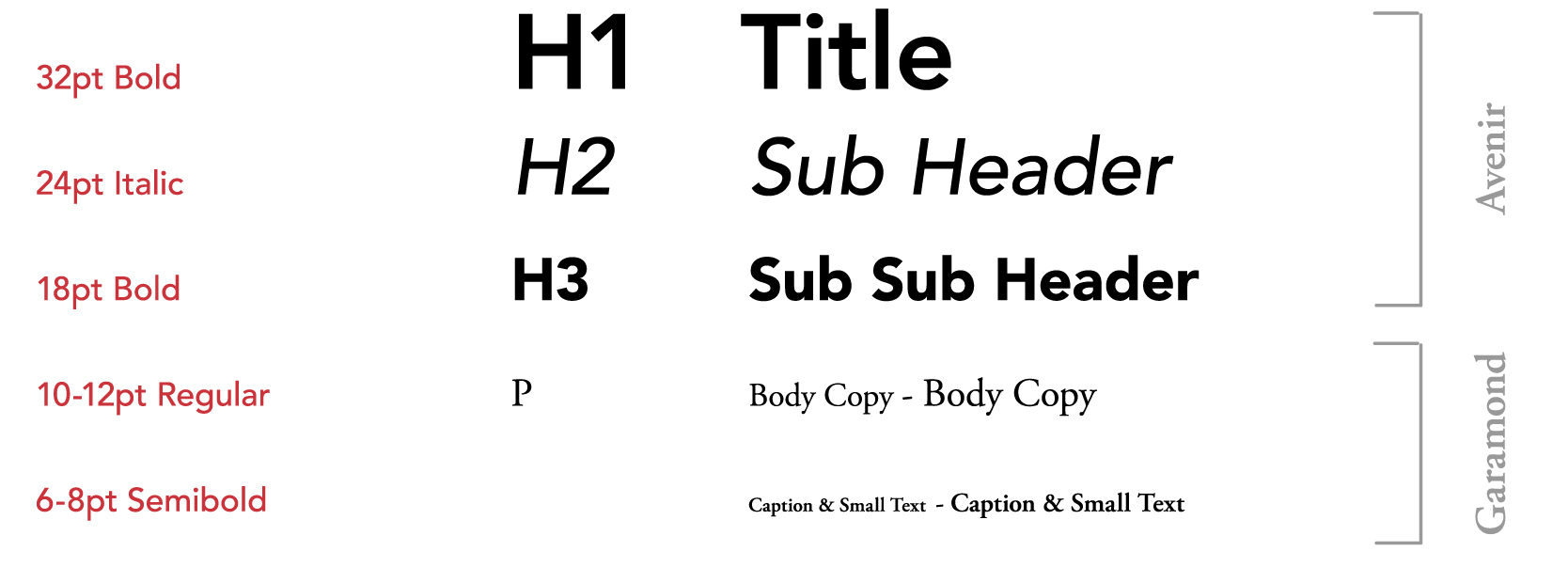
Standard Font Size For Newspaper . Standard page dimensions are typically 12 x 22 inches (304 x 559 mm), but. The specific font size may vary depending on the. These fonts have clean lines and are easy to. Newspapers typically come in a few standard sizes, which vary depending on the publication’s preference and its target audience. Page size varies within a newspaper. We’ve broken down 10 popular newspaper fonts and analyzed what they can offer as a potential headline or newspaper headline font. Most are in the 9 pt range, as someone already. Most newspapers use 8 or 9 point text for body copy. What is the standard font size for newspapers? 22.75” x 17” with a live/printable design area of 21” x 16” size in pixels (at 300ppi): Here are the most common newspaper sizes. The most common newspaper fonts are serif, such as times new roman and georgia.
What is the standard font size for newspapers? Here are the most common newspaper sizes. Most newspapers use 8 or 9 point text for body copy. Newspapers typically come in a few standard sizes, which vary depending on the publication’s preference and its target audience. Standard page dimensions are typically 12 x 22 inches (304 x 559 mm), but. Most are in the 9 pt range, as someone already. Page size varies within a newspaper. 22.75” x 17” with a live/printable design area of 21” x 16” size in pixels (at 300ppi): We’ve broken down 10 popular newspaper fonts and analyzed what they can offer as a potential headline or newspaper headline font. The specific font size may vary depending on the.
Newspaper Font Sizes Exploring The Evolution Of Font Sizes
Standard Font Size For Newspaper Here are the most common newspaper sizes. Most newspapers use 8 or 9 point text for body copy. 22.75” x 17” with a live/printable design area of 21” x 16” size in pixels (at 300ppi): Standard page dimensions are typically 12 x 22 inches (304 x 559 mm), but. These fonts have clean lines and are easy to. The most common newspaper fonts are serif, such as times new roman and georgia. We’ve broken down 10 popular newspaper fonts and analyzed what they can offer as a potential headline or newspaper headline font. What is the standard font size for newspapers? Most are in the 9 pt range, as someone already. Page size varies within a newspaper. The specific font size may vary depending on the. Newspapers typically come in a few standard sizes, which vary depending on the publication’s preference and its target audience. Here are the most common newspaper sizes.
Standard Fonts & Font Sizes Standard Font Size For Newspaper 22.75” x 17” with a live/printable design area of 21” x 16” size in pixels (at 300ppi): Most are in the 9 pt range, as someone already. Standard page dimensions are typically 12 x 22 inches (304 x 559 mm), but. We’ve broken down 10 popular newspaper fonts and analyzed what they can offer as a potential headline or newspaper. Standard Font Size For Newspaper.
Printable Font Size Chart Standard Font Size For Newspapers typically come in a few standard sizes, which vary depending on the publication’s preference and its target audience. Most are in the 9 pt range, as someone already. Most newspapers use 8 or 9 point text for body copy. We’ve broken down 10 popular newspaper fonts and analyzed what they can offer as a potential headline or newspaper headline. Standard Font Size For Newspaper.
Newspaper Size Dimension, Inches, mm, cms, Pixel Standard Font Size For Newspapers typically come in a few standard sizes, which vary depending on the publication’s preference and its target audience. 22.75” x 17” with a live/printable design area of 21” x 16” size in pixels (at 300ppi): Standard page dimensions are typically 12 x 22 inches (304 x 559 mm), but. These fonts have clean lines and are easy to. Most. Standard Font Size For Newspaper.
Most Popular Newspaper Fonts Standard Font Size For Newspaper These fonts have clean lines and are easy to. Most newspapers use 8 or 9 point text for body copy. The specific font size may vary depending on the. What is the standard font size for newspapers? Here are the most common newspaper sizes. 22.75” x 17” with a live/printable design area of 21” x 16” size in pixels (at. Standard Font Size For Newspaper.
Newspaper Size Dimension, Inches, mm, cms, Pixel Standard Font Size For Newspaper Standard page dimensions are typically 12 x 22 inches (304 x 559 mm), but. 22.75” x 17” with a live/printable design area of 21” x 16” size in pixels (at 300ppi): The specific font size may vary depending on the. The most common newspaper fonts are serif, such as times new roman and georgia. Here are the most common newspaper. Standard Font Size For Newspaper.
Newspaper Letters Font Generator Amazing Font Standard Font Size For Newspaper The most common newspaper fonts are serif, such as times new roman and georgia. Most newspapers use 8 or 9 point text for body copy. Here are the most common newspaper sizes. What is the standard font size for newspapers? Newspapers typically come in a few standard sizes, which vary depending on the publication’s preference and its target audience. The. Standard Font Size For Newspaper.
Newspaper Fonts on Google Docs Standard Font Size For Newspaper Page size varies within a newspaper. The most common newspaper fonts are serif, such as times new roman and georgia. 22.75” x 17” with a live/printable design area of 21” x 16” size in pixels (at 300ppi): Newspapers typically come in a few standard sizes, which vary depending on the publication’s preference and its target audience. The specific font size. Standard Font Size For Newspaper.
20+ Best Newspaper Fonts for Capturing Attention Standard Font Size For Newspaper 22.75” x 17” with a live/printable design area of 21” x 16” size in pixels (at 300ppi): What is the standard font size for newspapers? Here are the most common newspaper sizes. We’ve broken down 10 popular newspaper fonts and analyzed what they can offer as a potential headline or newspaper headline font. Most are in the 9 pt range,. Standard Font Size For Newspaper.
Newspaper Size Dimension, Inches, mm, cms, Pixel Standard Font Size For Newspaper The specific font size may vary depending on the. These fonts have clean lines and are easy to. Page size varies within a newspaper. We’ve broken down 10 popular newspaper fonts and analyzed what they can offer as a potential headline or newspaper headline font. Here are the most common newspaper sizes. Standard page dimensions are typically 12 x 22. Standard Font Size For Newspaper.